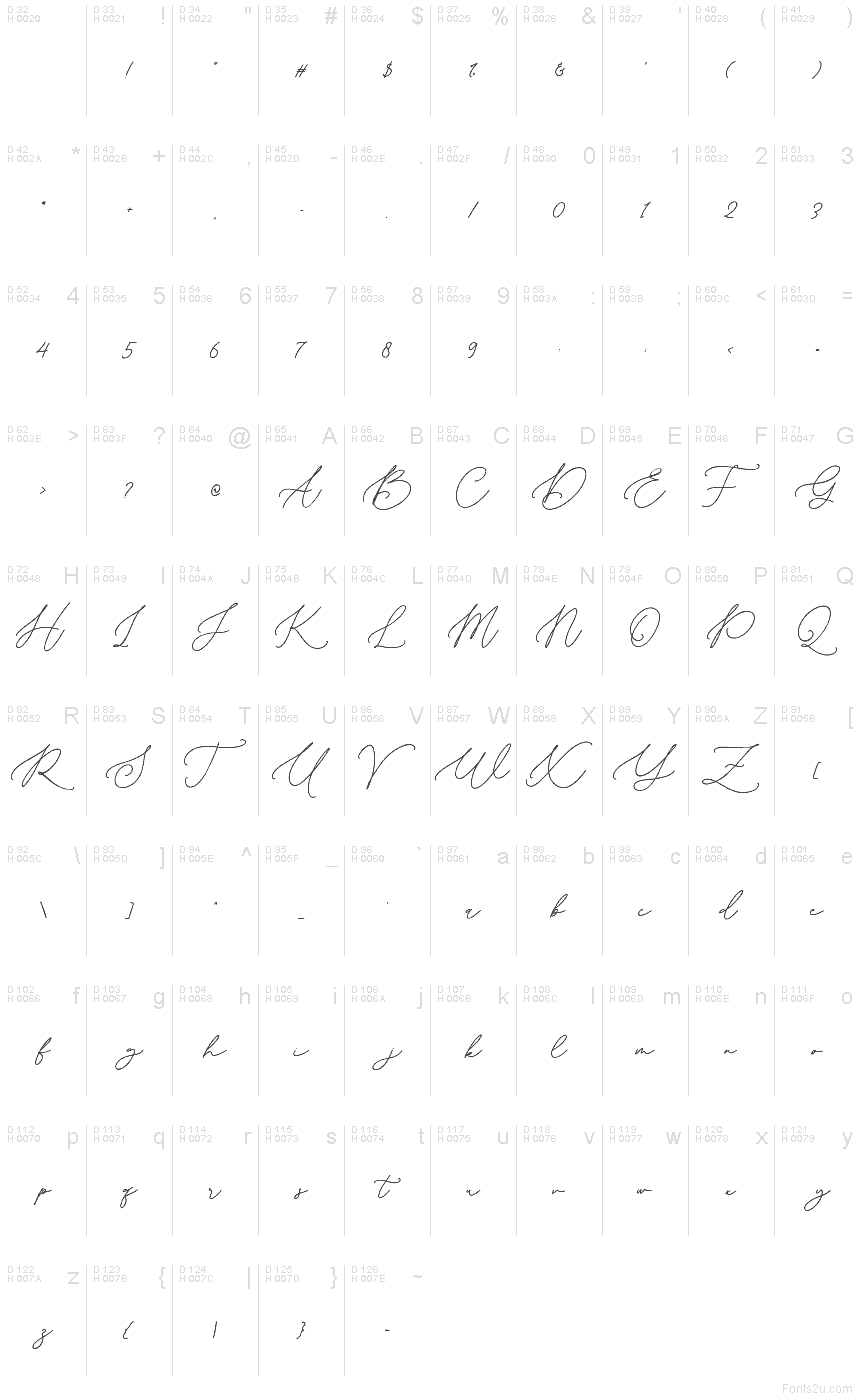
RosliyaQueen
Rosliya Queen font from Beautypes perfectly captures the elegant and delicate fluid movements that characterize signature fonts. The script’s letters appear to be connected, allowing it to create a continuous handwritten impression. This light-weight font is sophisticated, minimalistic, and easily noticeable in whatever design it becomes part of.
This identifying font can present your name in email signatures or on business cards. It suits branding designs, packaging designs (cosmetic-related for example), and presentation templates. Rosliya Queen is also an excellent choice for typography artwork, greeting cards, book covers and titles, UX & UI design among others!